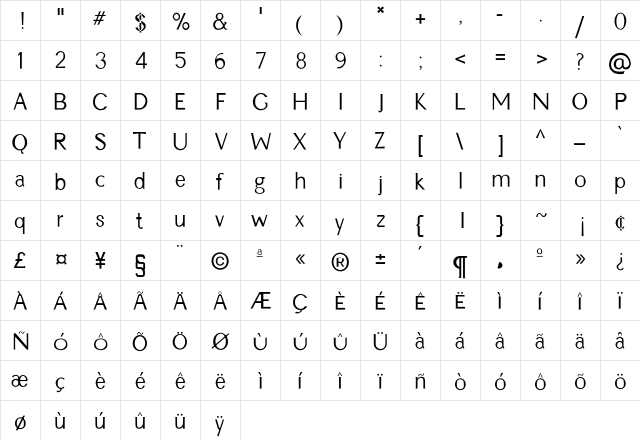
RSKathlita Regular
Design Context for RSKathlita Typeface
RSKathlita is a composed and adaptable typeface that performs quietly and consistently across a wide range of design contexts.